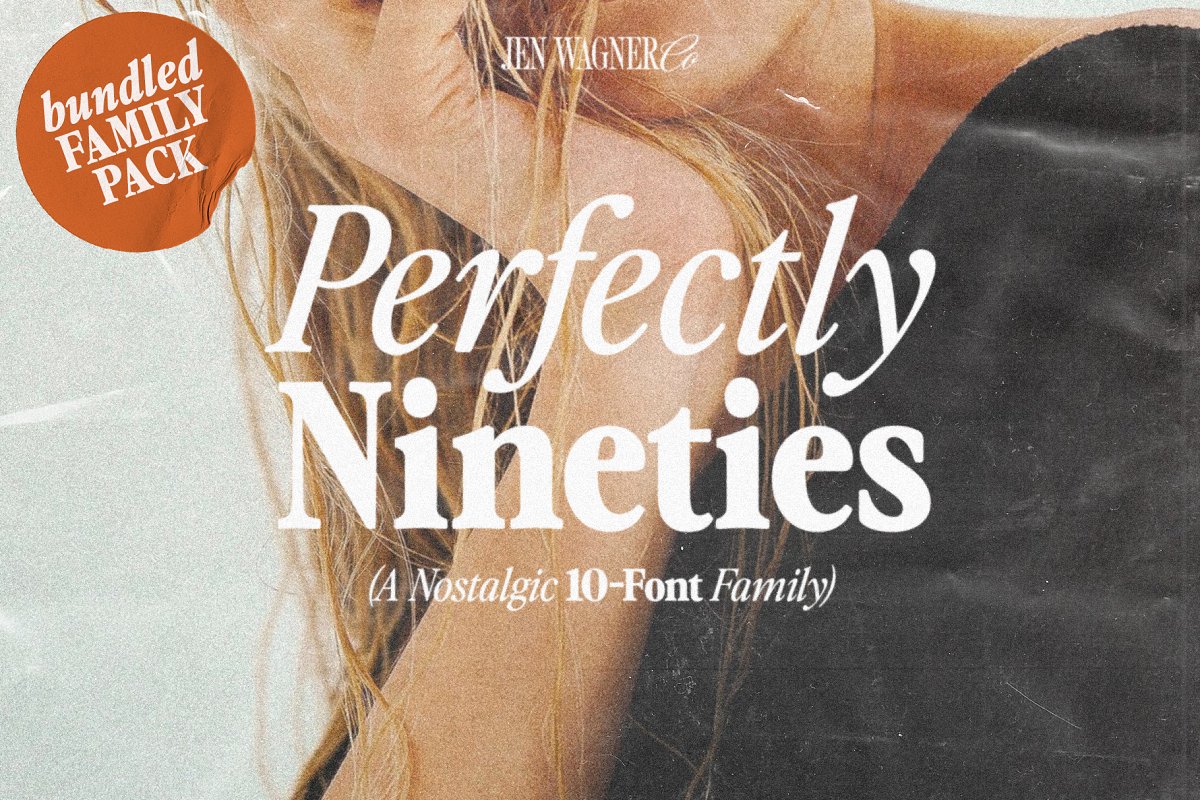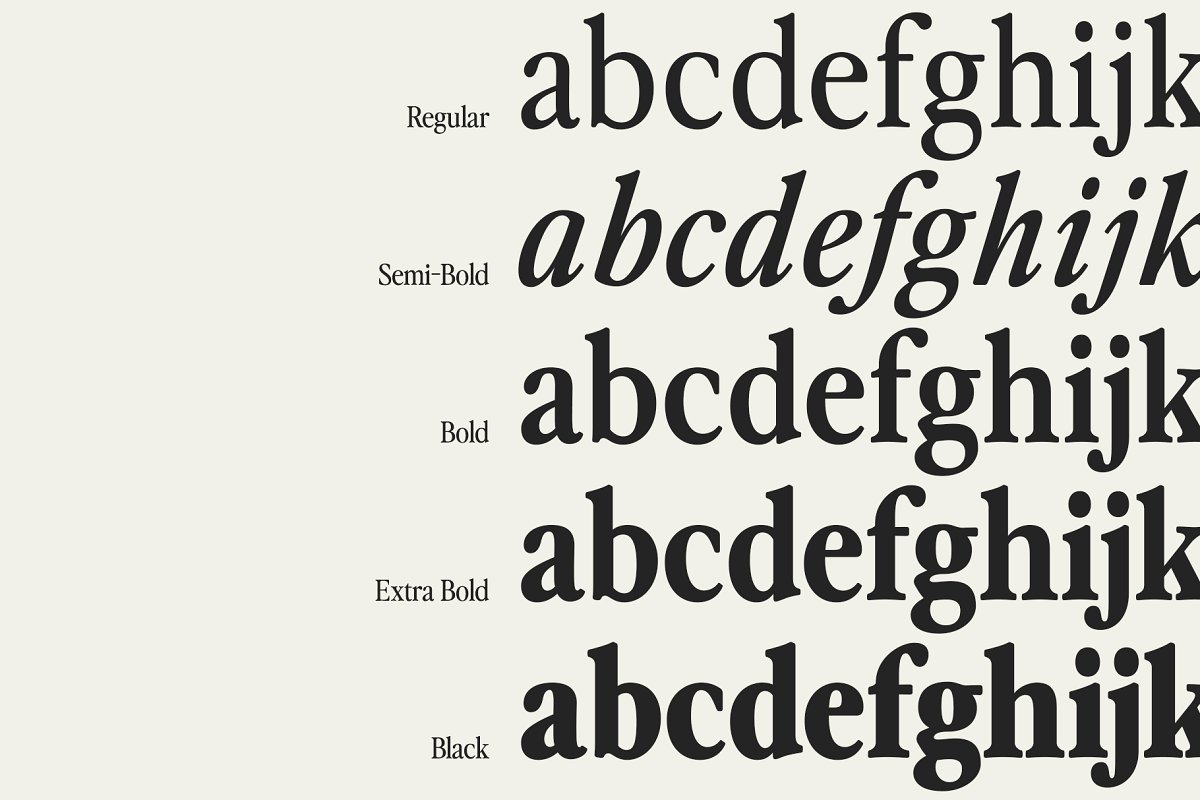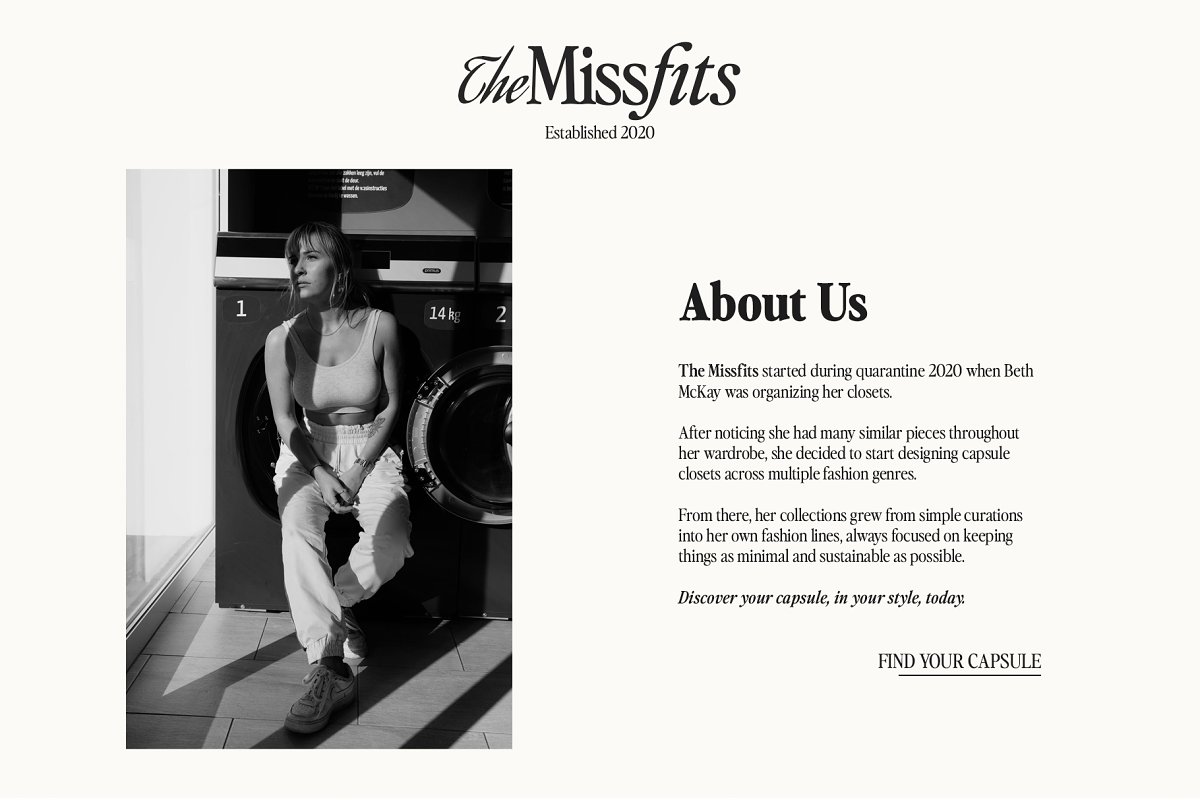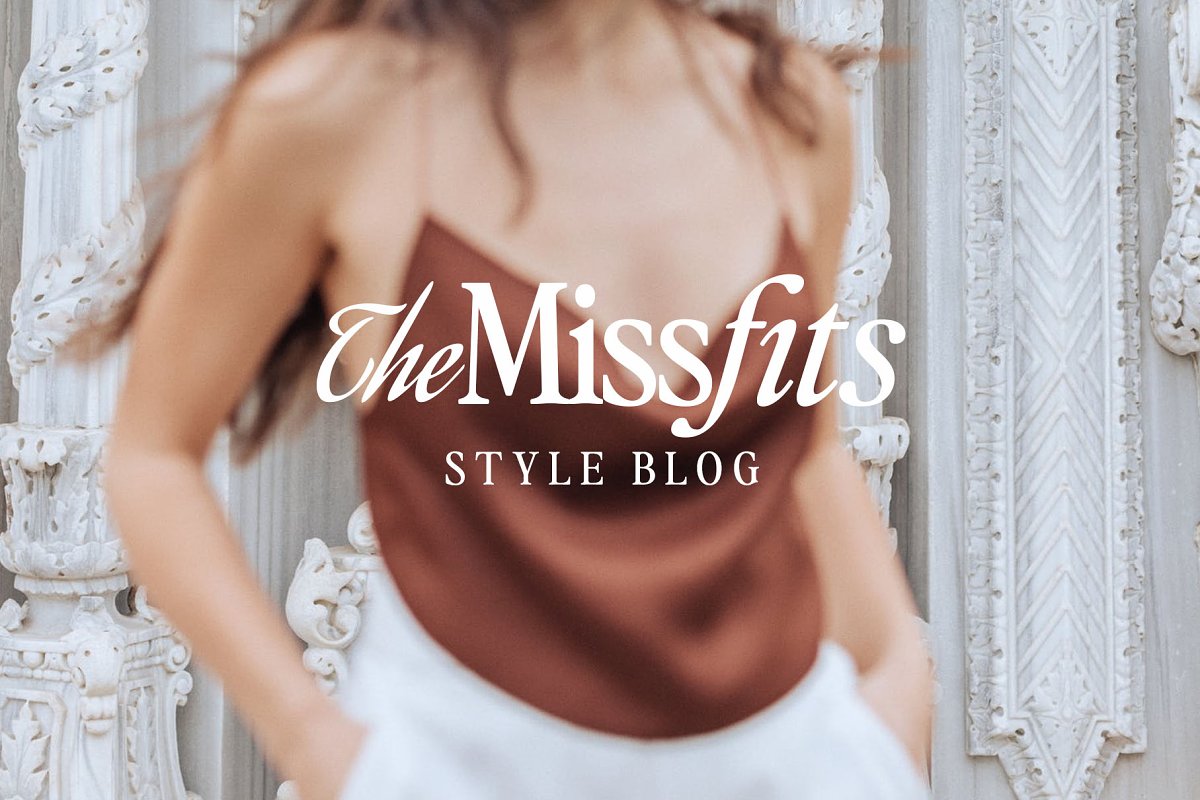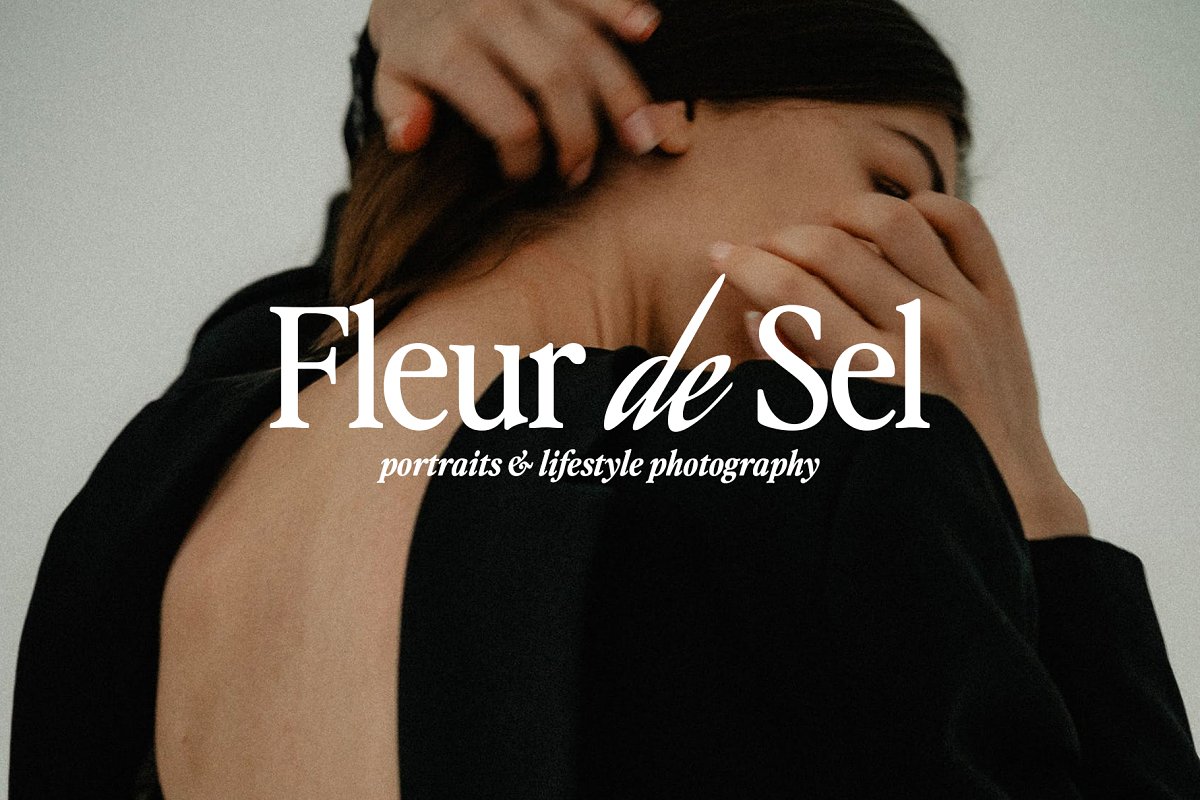
About the Perfectly Nineties Family Font
If you’ve already bought Perfectly Nineties, send a screenshot of your receipt to support@jenwagner, co to upgradeSay hello to the Perfectly Nineties FAMILY – an expansion on Perfectly Nineties that includes 10 fonts, regular and italic, from Regular weight to Black, and still has all the nostalgic vibes!I’ve started seeing classic, tightly spaced serifs of the 80s & 90s making a comeback, and wanted to create the perfect one for you too!Perfectly Nineties is a beautifully nostalgic 10-font typeface that looks incredible in both large and small settings as a display and body text
I’ve been loving combining the regular and italic, whether all in one word (like in the Missfits samples) or in body text!You’ll also get two Photoshop Actions as a bonus that create a vintage magazine print look with the click of a button (see the before/after on the 7th image, 1993) :)One thing to note about Perfectly Nineties is the letter spacing
It was intentionally spaced for clean reading if you wanted to use it for body type, so I recommend setting the spacing a little tighter for display use (around -10 to -20 should do!), Recommended Font PairingsNineties Headliner (literally made to go together!): https://creativemarket